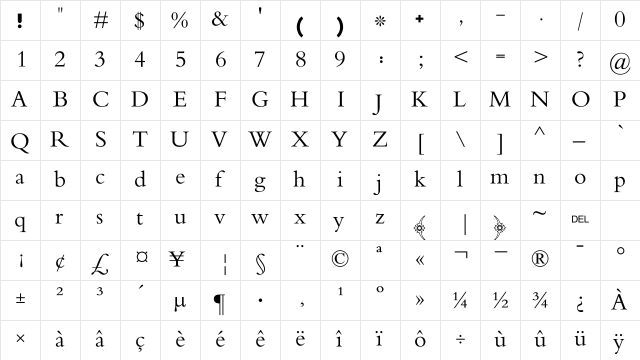
AL-Fares Regular
Design Context for AL-Fares Typeface
AL-Fares offers clean, dependable letterforms without strong stylistic allegiance, making it a practical choice for designers who need flexibility.
Pro Tip: Use AL-Fares in both headline and body roles to test its range before committing to a single application.